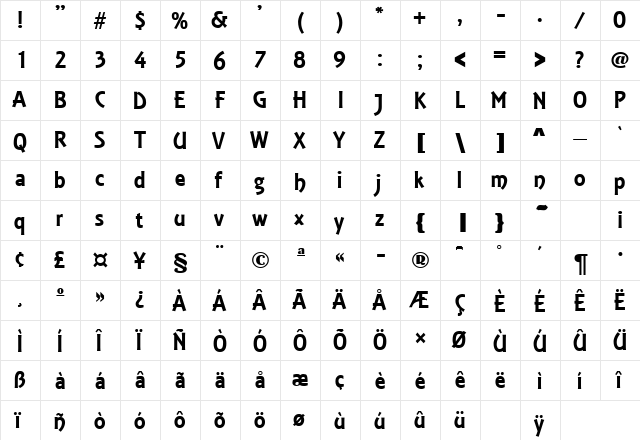
Estelle DB Regular
Design Context for Estelle DB Typeface
Estelle DB offers clean, dependable letterforms without strong stylistic allegiance, making it a practical choice for designers who need flexibility.